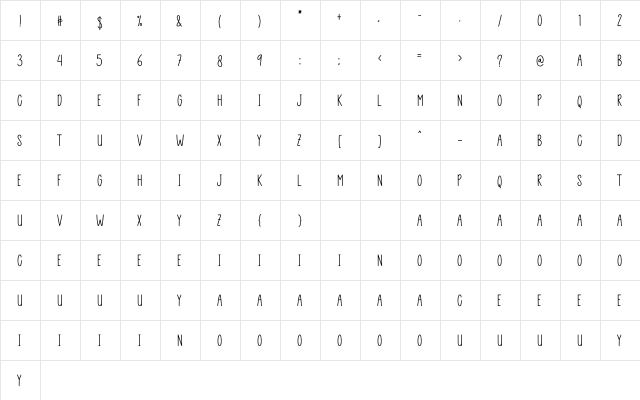
Cottage Designer Regular
Design Context for Cottage Designer Typeface
Cottage Designer is a composed and adaptable typeface that performs quietly and consistently across a wide range of design contexts.
Pro Tip: Use Cottage Designer in both headline and body roles to test its range before committing to a single application.